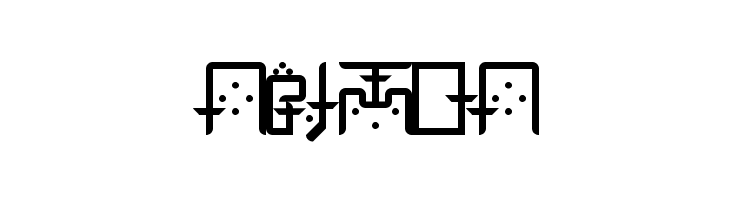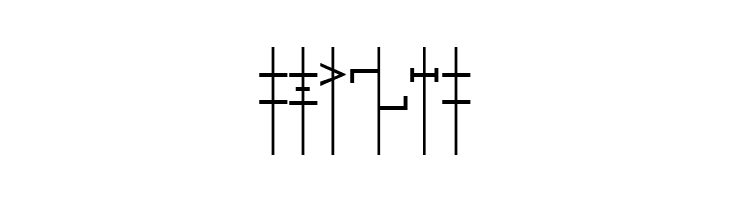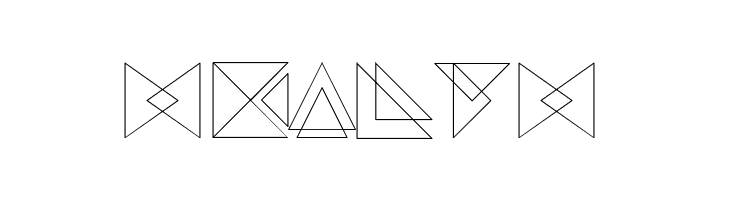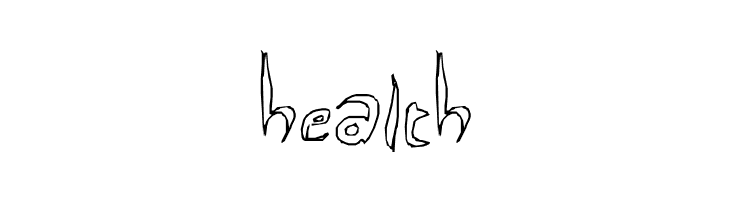
A decorative, rune-like font with geometric and cryptographic elements.
A decorative font with geometric and abstract shapes, resembling ancient symbols.
A geometric and abstract font with intersecting lines and shapes.
An artistic and abstract representation of Braille with decorative elements.
A font inspired by early Western Greek scripts with an ancient, hand-drawn aesthetic.